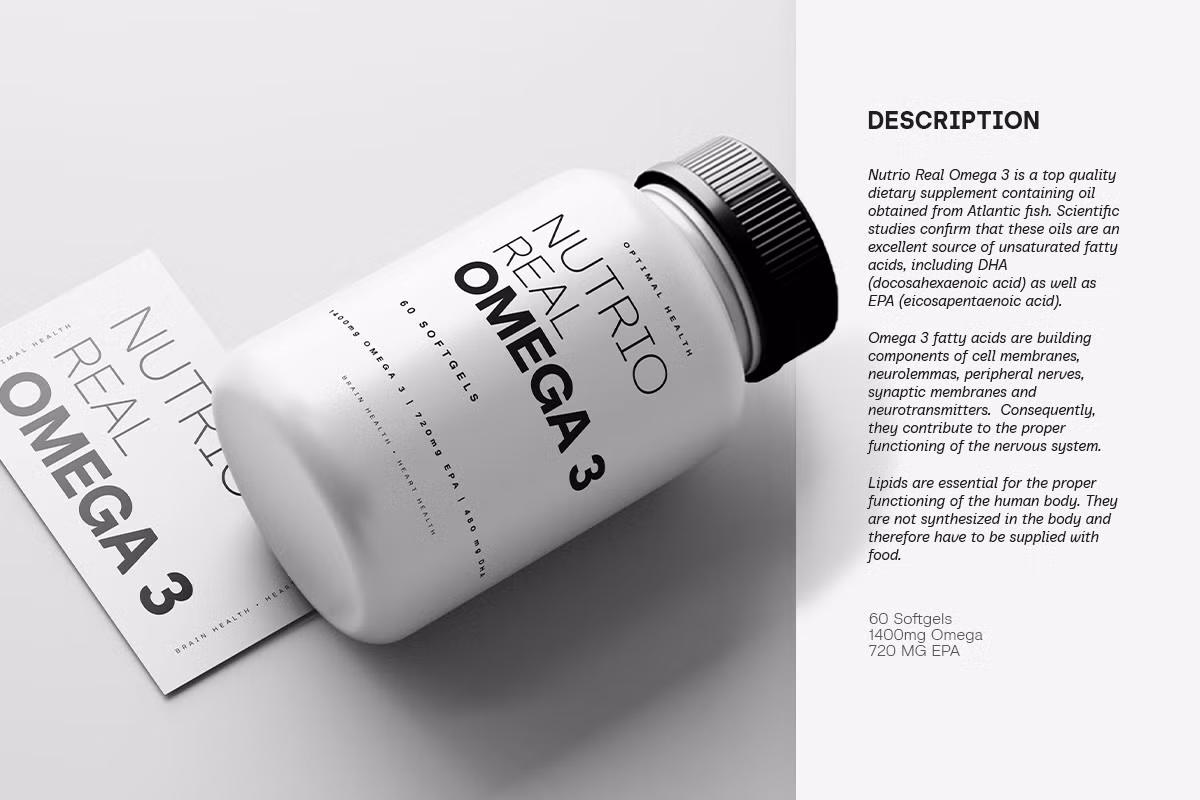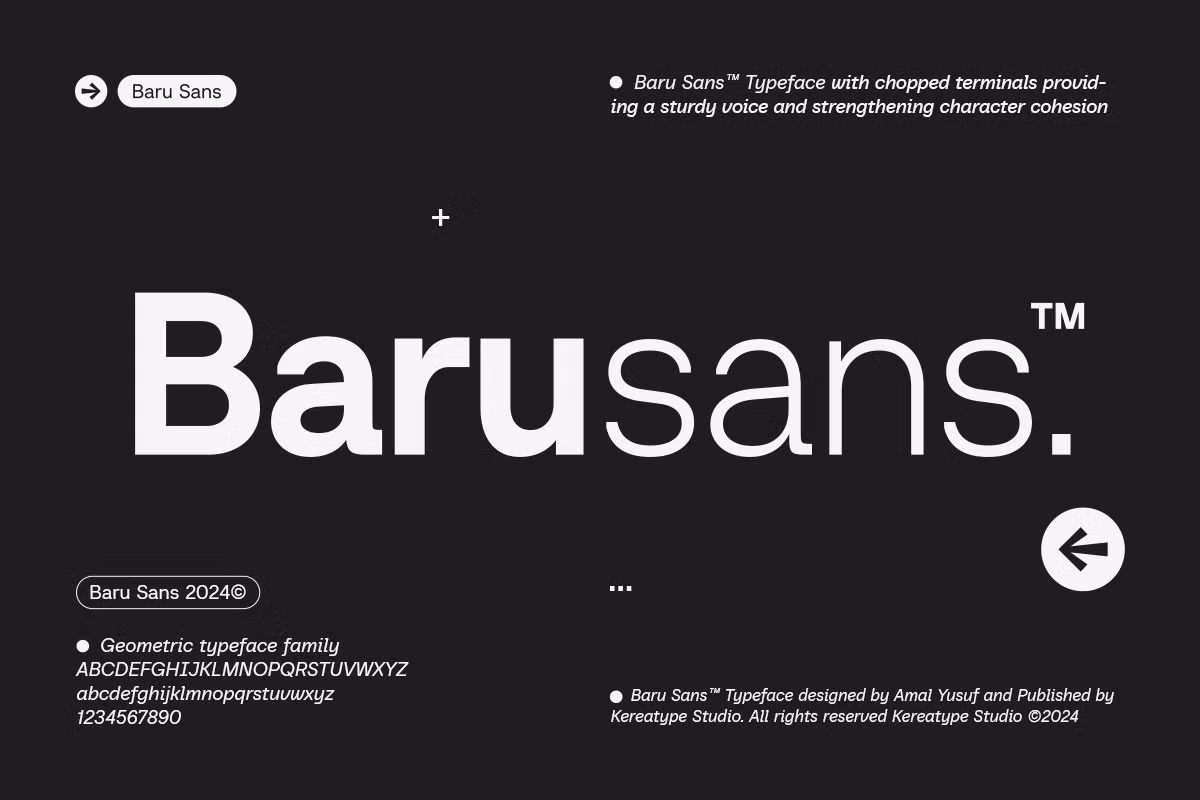
Baru Sans Font
Baru Sans is a geometric typeface that provides an optimum mean between geometrical fundamentals, which has chopped terminals with distinguishable 90ยบ stokes to emphasize the design rigor. Furthermore, it is also presented by the Baru Sans italic typeface design which reflects humanist script and script related with handwriting.
Baru Sans Serif Font Family